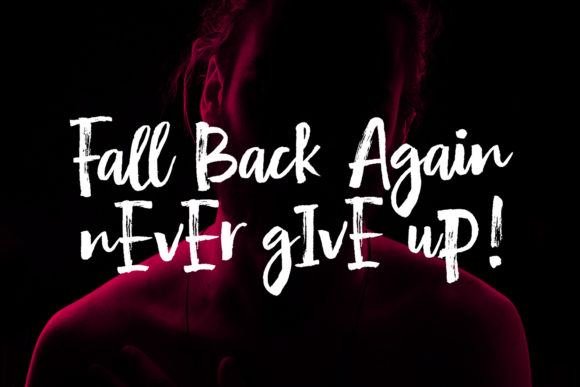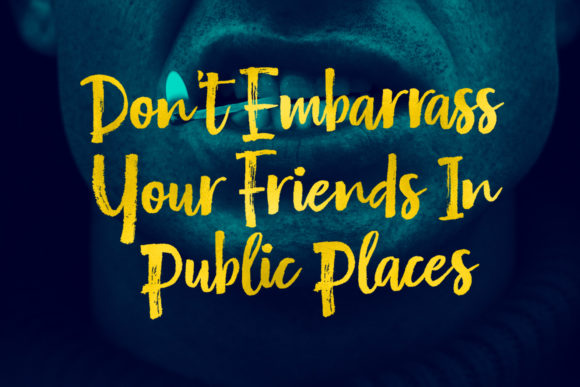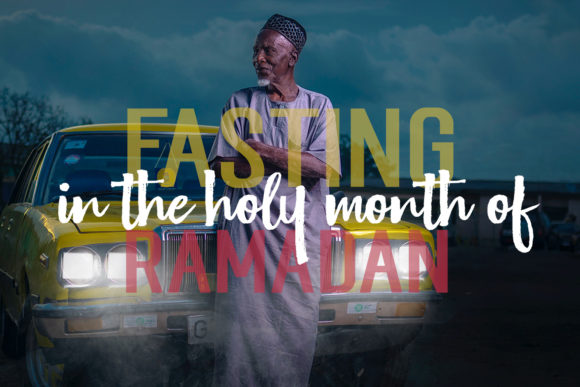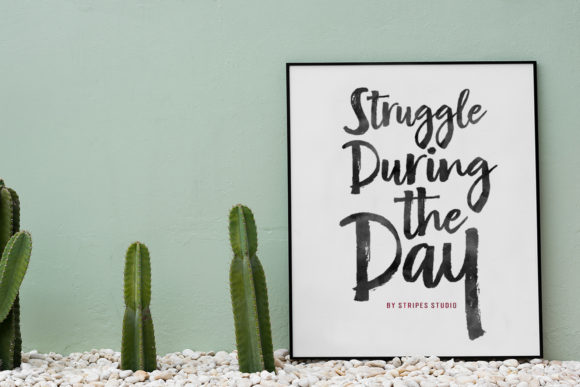
HomeScript FontsGruffly Font Script Fonts Gruffly Font FacebookXPinterestWhatsApp Gruffly Font Poster 2 Gruffly Font Poster 3 Gruffly Font Poster 4 Gruffly Font Poster 5 About Gruffly Font Gruffly is a bold and fun handwritten font with an incredible feel. Get inspired by its rough charm! DOWNLOAD ON CREATIVE FABRICAThis font is sold and delivered by Creative Fabrica. Font Canyon may earn a commission if you buy through this link. People also explored Sunday Beach Font Foxlove Font Maldives Blossomy Font Quillstone Font Mentally Font Angelin Font Bat Night Font Beauty Flowers Font 454 0 TagsGruffly Font Previous articleBlack Finger FontNext articleSherland Modern Font LEAVE A REPLY Cancel reply Comment: Please enter your comment! Name:* Please enter your name here Email:* You have entered an incorrect email address! Please enter your email address here Website: Save my name, email, and website in this browser for the next time I comment. Personal Use Free Black Jalal Personal Use Free Read more about this font Valentine Chips Personal Use Free Read more about this font Deling Personal Use Free Read more about this font BD Alm Personal Use Free Read more about this font BLOG Exploring Font Trends Shaping Communication in the Digital Era Fonts, like all design elements, are subject to trends. They play a crucial role in communicating a brand's personality,... Modern Sans-Serif Fonts That Brands Love in 2025 Fonts That Capture the Spirit of New York City How to Install and Use Fonts on Windows, macOS, and Web Projects